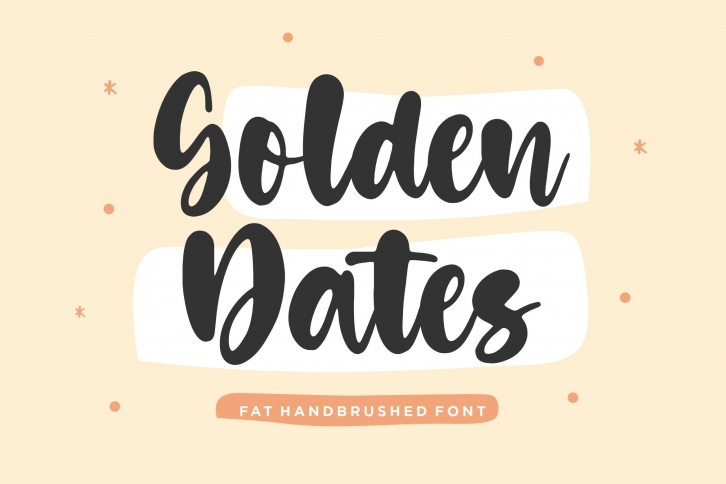
Golden Dates Modern Calligraphy is a great font that was designed by Balpirick. Imagine the amount of combinations you can create using this font! The archive is 19.59 MB and it was released on October 14, 2021. Golden Dates Modern Calligraphy looks beautiful on wedding invitations, greeting cards, logos, posters, labels, t-shirt designs, logos, business cards and is perfect for use in ink or watercolor works, fashion, magazines, packaging and food menus, children's books and more!